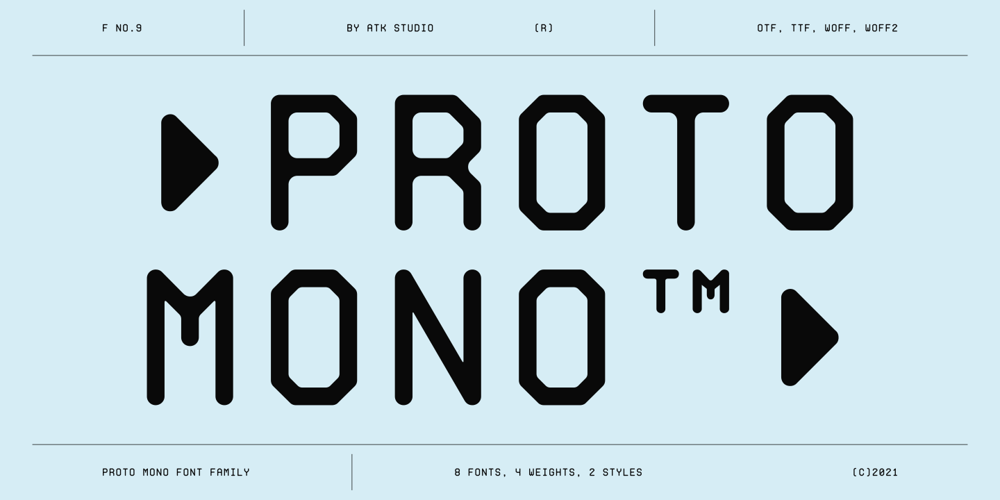
Proto Mono Font Family was designed by Radinal Riki and published by ATK Studio. Proto Mono contains 8 styles and family package options. Proto Mono™ is a modular monospaced font built with rounded shapes, designed with tech industrial taste by Radinal Riki. Created for electronic displays found in our modern techie world such as postal packing slips, airline tickets, informational video displays, ads, and more. Come with 2 styles with 4 weights each. This entire font is capitalized and with a character set that covers over 100 languages.